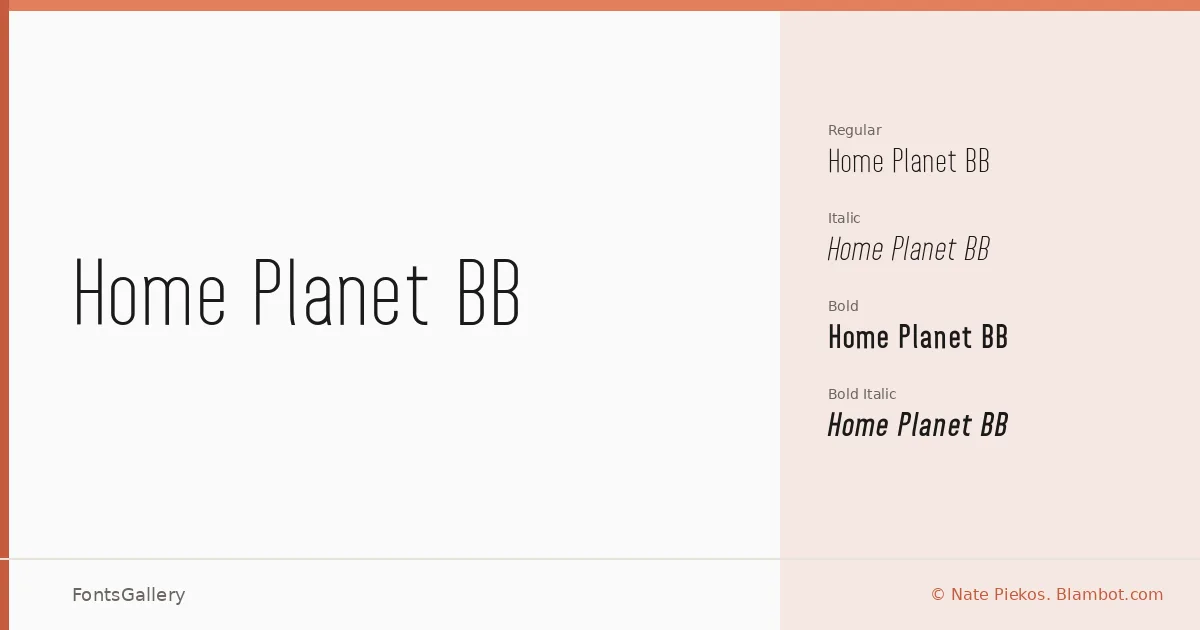
There is something immediately kinetic about this face — the letterforms carry a retro-futurist energy that feels pulled from mid-century science fiction, yet the construction stays clean and controlled. It is the work of Nate Piekos of Blambot.com, whose background in comic lettering and display typography is evident in every curve and angle.
The family sits firmly in the sans serif category and delivers a mood that is at once bold, modern, and playful without losing its futuristic edge. Four cuts are available — Regular, Italic, Bold, and Bold Italic — giving you a complete set for building hierarchy or adding motion through the italics. The Bold and Bold Italic carry real visual weight, well suited to situations where the type needs to hold its own against busy backgrounds or competing imagery. Both TTF and OTF formats are included, and Latin script is covered throughout.
The face earns its keep in branding, poster work, social media graphics, and t-shirt design — anywhere a headline needs character and snap. The listed pairing suggestions span a useful range: Canela brings a refined serif contrast, Allura offers a flowing script counterpoint, 321 Impact adds raw display muscle, ABC Arizona supplies editorial structure, and Ballmain rounds out the options with its own distinct personality.